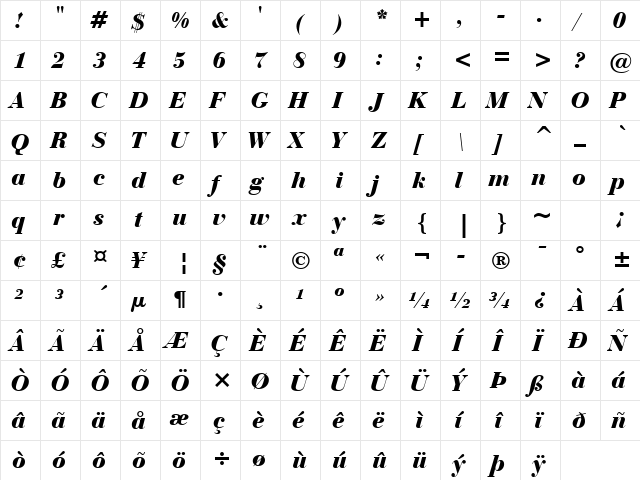
BauerBodni Blk BT Black Italic Font Preview
BauerBodni Blk BT Black Italic
Design Context for BauerBodni Blk BT Typeface
BauerBodni Blk BT takes a measured approach to typography — its balanced proportions and neutral character make it a reliable workhorse for both digital and print work. The dynamic lean of this cut emphasises speed and emphasis in any layout.